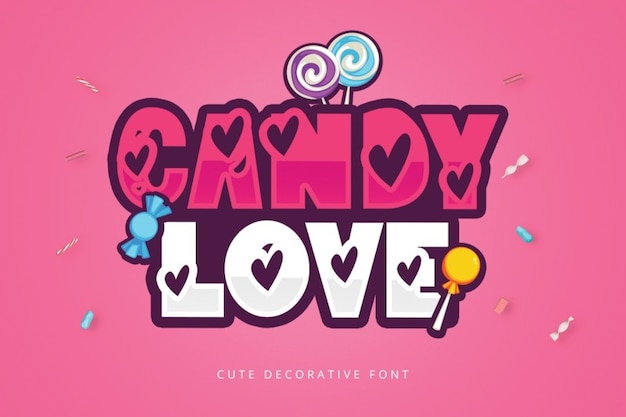
Candylove
Candylove Font
Candylove is a sweet, whimsical font perfect for Valentine’s Day and love-themed designs. With its heart-shaped accents and playful curves, it captures the essence of romance and affection. Ideal for greeting cards, gift tags, or social media posts, Candylove adds a delightful, sugary touch to any project, spreading love and warmth.